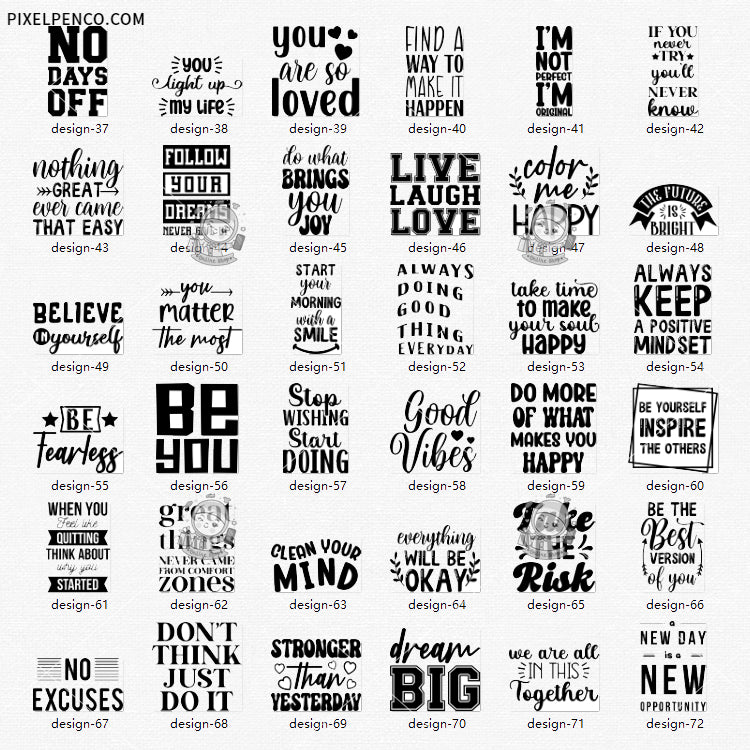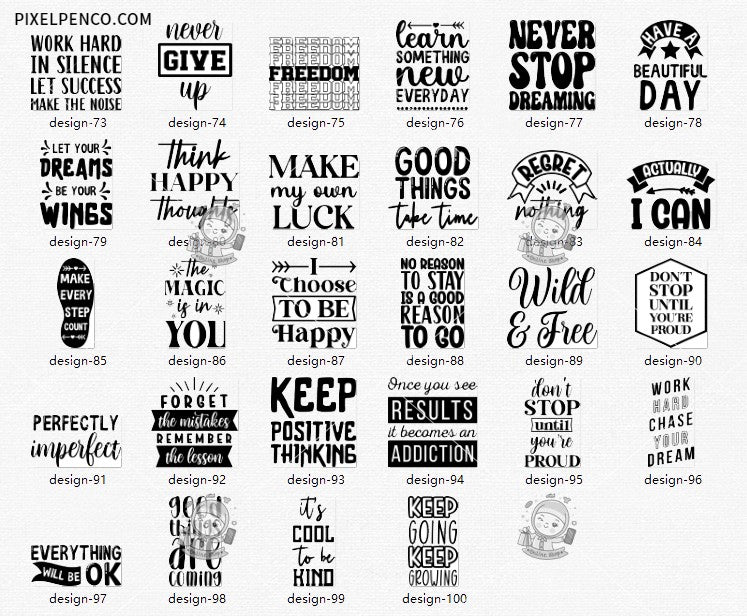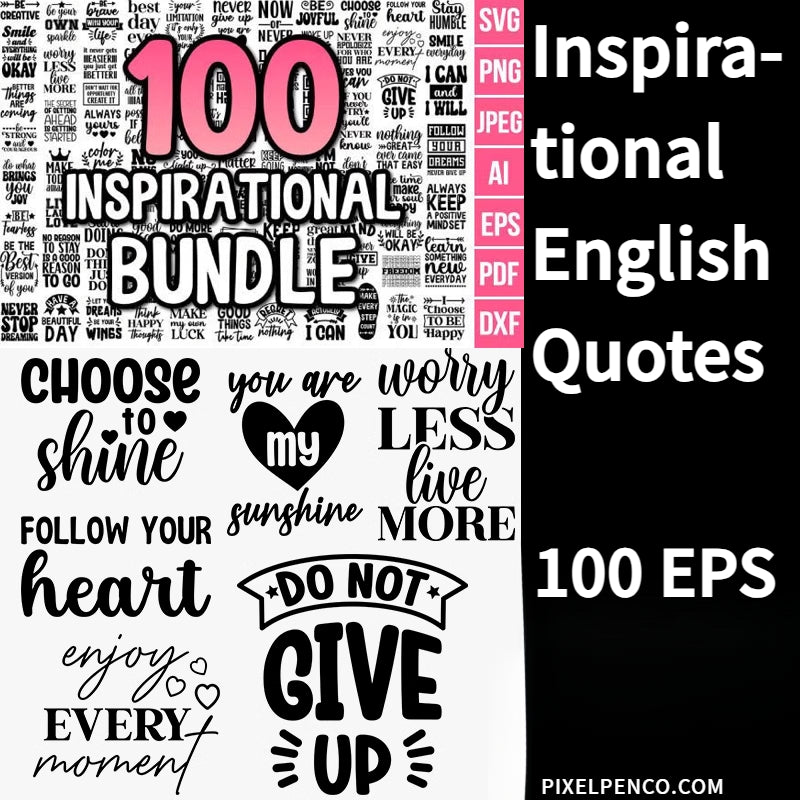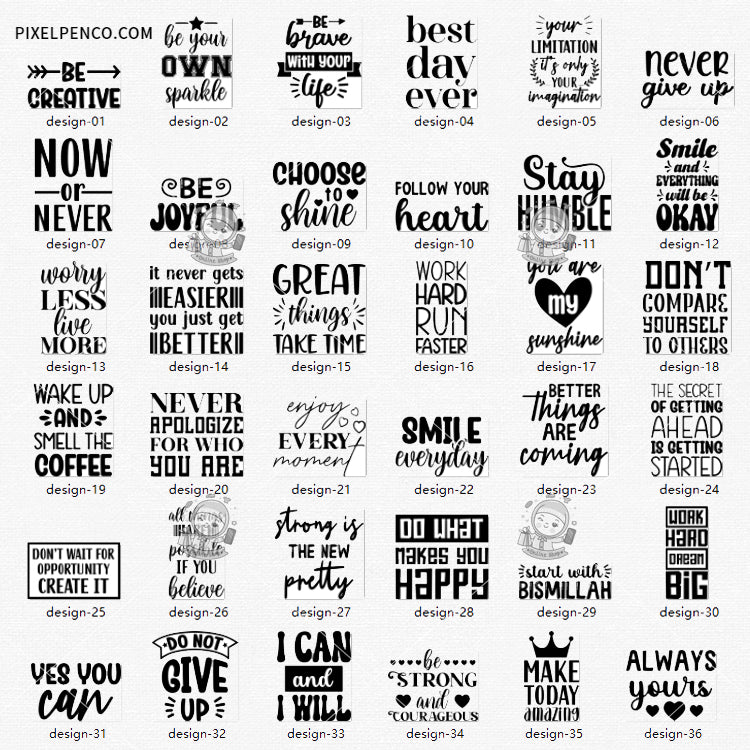
Inspirational English Quotes Font Design EPS Source Files | High - Definition Premium Design Materials
【Exquisite Design】
Features meticulously crafted English - language fonts for inspirational and cautionary quotes. Each design balances readability and aesthetic appeal, catering to graphic designers, marketers, and content creators looking to infuse projects with positive or thought - provoking messages.